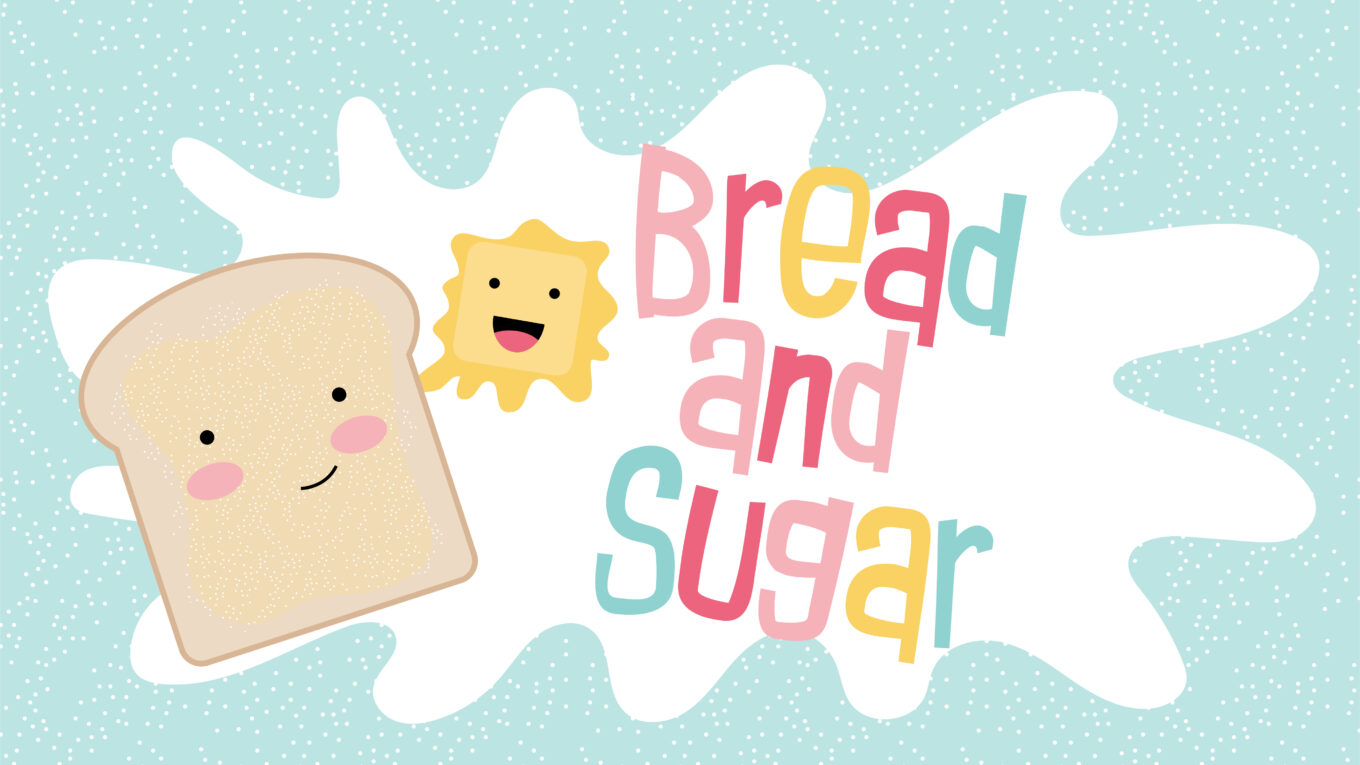
Bread and Sugar Font: The Whimsical Choice for Your Creative Projects
Are you a designer, crafter, or DIY enthusiast looking for a font that adds a touch of warmth and playfulness to your projects? Look no further than the Bread and Sugar font! This charming, hand-crafted font is perfect for anyone who wants to infuse their work with a homey and fun vibe. In this article, we’ll explore the features and benefits of the Bread and Sugar font, and show you how to make the most of this delightful typeface.
A Whimsical, Hand-Crafted Font
Bread and Sugar is a unique, hand-crafted font that is sure to capture the hearts of designers and crafters alike. With its playful and whimsical design, this font is perfect for projects that require a personal touch. Whether you’re working on a children’s book, a craft tutorial, or a social media graphic, Bread and Sugar is the perfect choice.
One of the standout features of the Bread and Sugar font is its hand-crafted nature. Unlike generic, computer-generated fonts, Bread and Sugar has been carefully crafted by a skilled designer to ensure that every letter and character is unique and full of personality. This attention to detail gives the font a special charm that is hard to find in other typefaces.
Perfect for Print and Digital Applications
Bread and Sugar is a versatile font that can be used in a wide range of applications, from print to digital. Whether you’re designing a brochure, a business card, or a social media graphic, this font is sure to add a touch of whimsy and fun to your project.
In print applications, Bread and Sugar is perfect for projects such as:
- Children’s books and educational materials
- Craft tutorials and patterns
- Invitations and party decorations
- Branding and packaging for small businesses
In digital applications, Bread and Sugar is great for:
- Email newsletters and marketing materials
- Digital crafts and printables
Key Features of Bread and Sugar Font
So, what makes Bread and Sugar font so special? Here are some of the key features that set it apart:
- Hand-crafted design for a unique and personal touch
- Whimsical and playful style that’s perfect for creative projects
- Versatile and suitable for both print and digital applications
- Easy to read and use, even for beginners
Tips for Using Bread and Sugar Font
Now that you’ve fallen in love with the Bread and Sugar font, here are some tips for using it in your projects:
- Pair it with other playful fonts for a fun and eclectic look
- Use it as a headline font to add a touch of whimsy to your design
- Don’t be afraid to get creative and try new things – Bread and Sugar is a versatile font that can handle it!
In conclusion, Bread and Sugar font is a charming and whimsical typeface that’s perfect for designers, crafters, and DIY enthusiasts. With its hand-crafted design, playful style, and versatility, this font is sure to add a touch of warmth and fun to any project. Whether you’re working on a print or digital application, Bread and Sugar is the perfect choice for anyone who wants to infuse their work with a little bit of personality and charm.